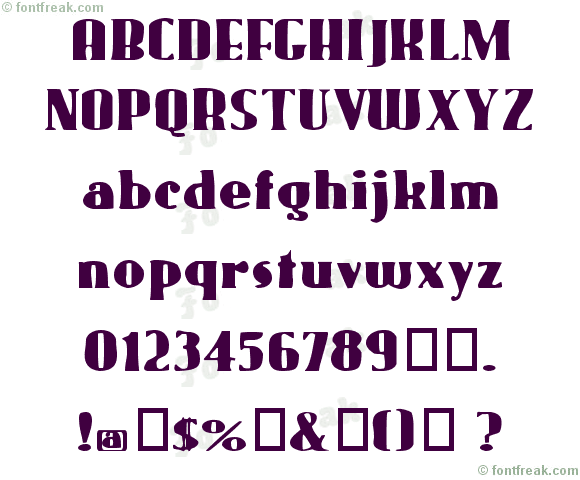
Gaggers
About Gaggers
Gaggers, created by Uddi Uddi Fonts in 1998, is a striking display font that captures attention with its unique character. This font falls into the decorative category, designed to stand out in various applications. Its bold stroke weight and playful forms give it a lively and energetic vibe, making it perfect for projects that require a fun and whimsical touch. The letters exhibit a moderate contrast in thickness, enhancing legibility while still maintaining a distinctive personality, and the spacing is thoughtfully balanced, ensuring clarity in both headlines and short phrases.
Ideal use cases for the Gaggers font include vibrant wedding invitations, where its playful nature can add a unique flair to the special occasion. It also works wonderfully for movie posters, especially in genres that lean towards comedy or adventure, capturing the eye of potential viewers. Restaurant menus can benefit from its engaging style, enticing diners and creating a welcoming atmosphere. Additionally, this font is perfect for branding materials aimed at younger audiences or family-oriented businesses, helping to convey a sense of fun and creativity.
The target audience for the Gaggers font includes graphic designers, small business owners, and content creators who are eager to infuse their work with a sense of humor and charm. This font's versatility and bold aesthetics make it a valuable addition to any designer’s toolkit.
What truly sets Gaggers apart is its ability to blend playfulness with readability, making it suitable for a variety of creative projects. Its unique style ensures that any application will stand out, and with the Gaggers font free download, you can easily incorporate this distinctive typeface into your next design venture.